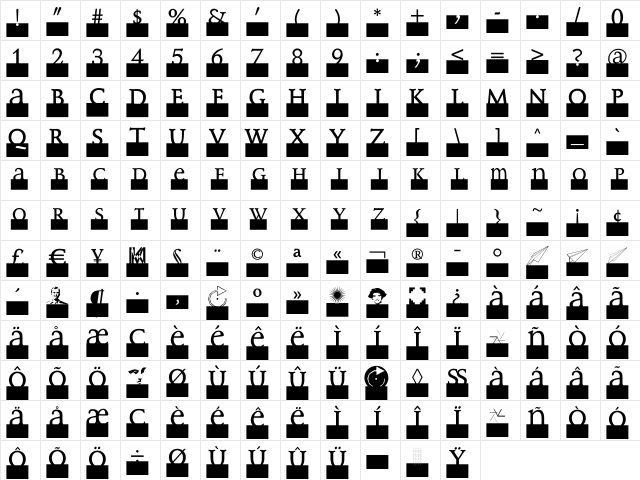
MonoSerifBased70 Regular
Design Context for MonoSerifBased70 Typeface
MonoSerifBased70 brings the precise, column-aligned rhythm of monospaced typography to designs that value technical clarity and systematic order.
Pro Tip: Use MonoSerifBased70 with slightly increased line-height for extended reading — fixed-width spacing can feel dense in longer passages without extra breathing room.